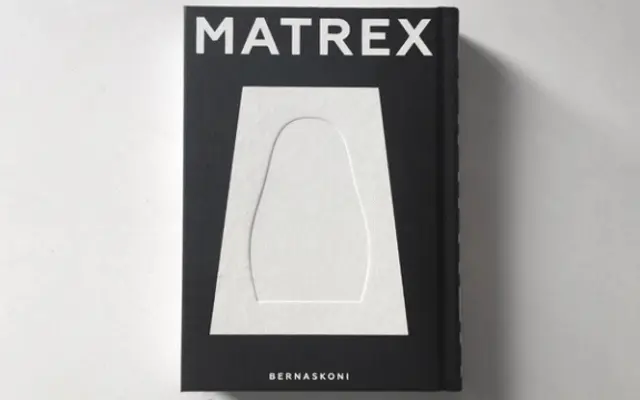
Geometria
Brownfox · Yulia Popova
A geometric sans-serif spanning eight weights with matching italics, covering Latin and Cyrillic across 72 languages.
Designed by Yulia Popova, Geometria offers sixteen styles running from Thin to Heavy in both upright and italic cuts. The dual-script coverage across Latin and Cyrillic makes it practical for multilingual projects in European and Russian-speaking markets. Its clean, constructed forms sit comfortably in editorial, corporate and digital contexts.
Geometria is a geometric sans-serif with a clean, constructed aesthetic and a wide weight range, consistent with the geometric sans tradition. Its name and specimen imagery confirm the geometric classification.